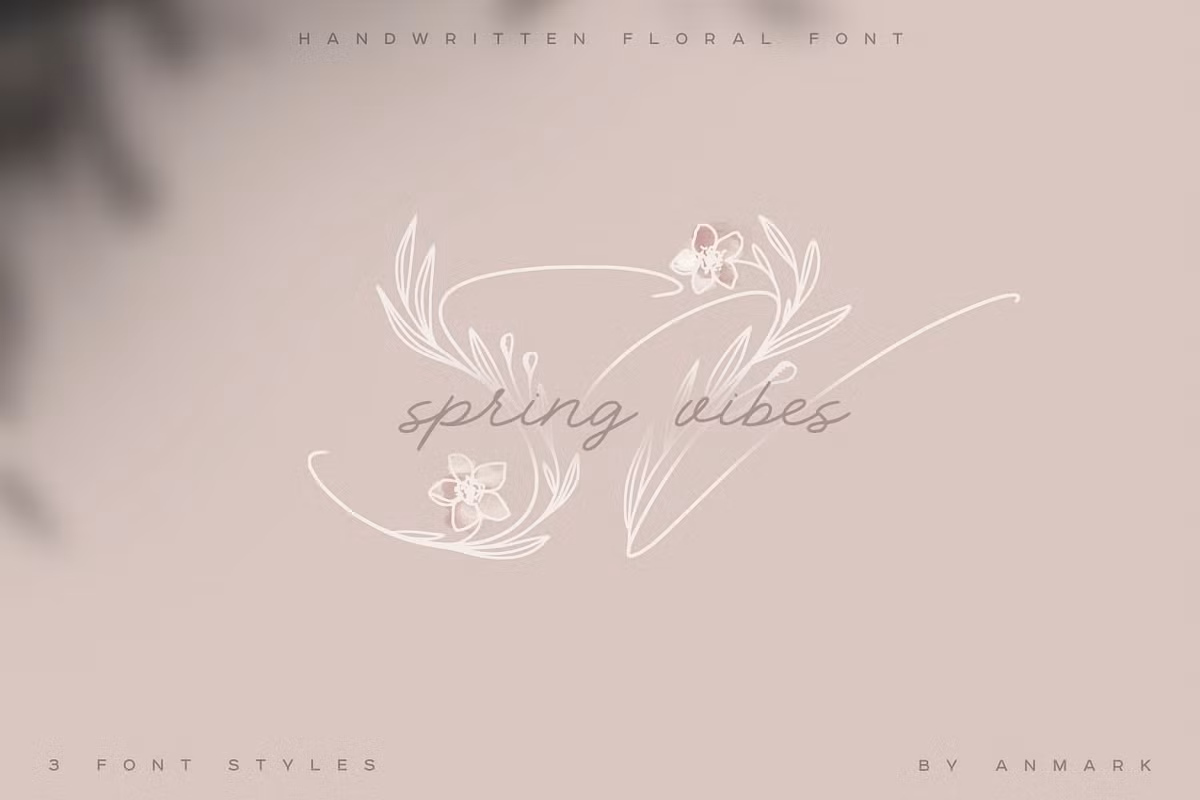
Spring Vibes. Floral Font + Frames Free Download is a beautiful and elegant typeface inspired by nature’s blooming charm. This stylish floral font is perfect for wedding invitations, feminine branding, and creative design projects that need a soft, romantic touch. With its hand-drawn floral elements and decorative frames, it brings an organic and sophisticated feel to any visual composition.
Designers love using Spring Vibes for its versatile aesthetic and professional finish. Whether you're creating social media graphics, event posters, or stationery, this font adds a fresh and modern botanical vibe. The included frames elevate your layout even further, giving you flexibility in how you present your work.